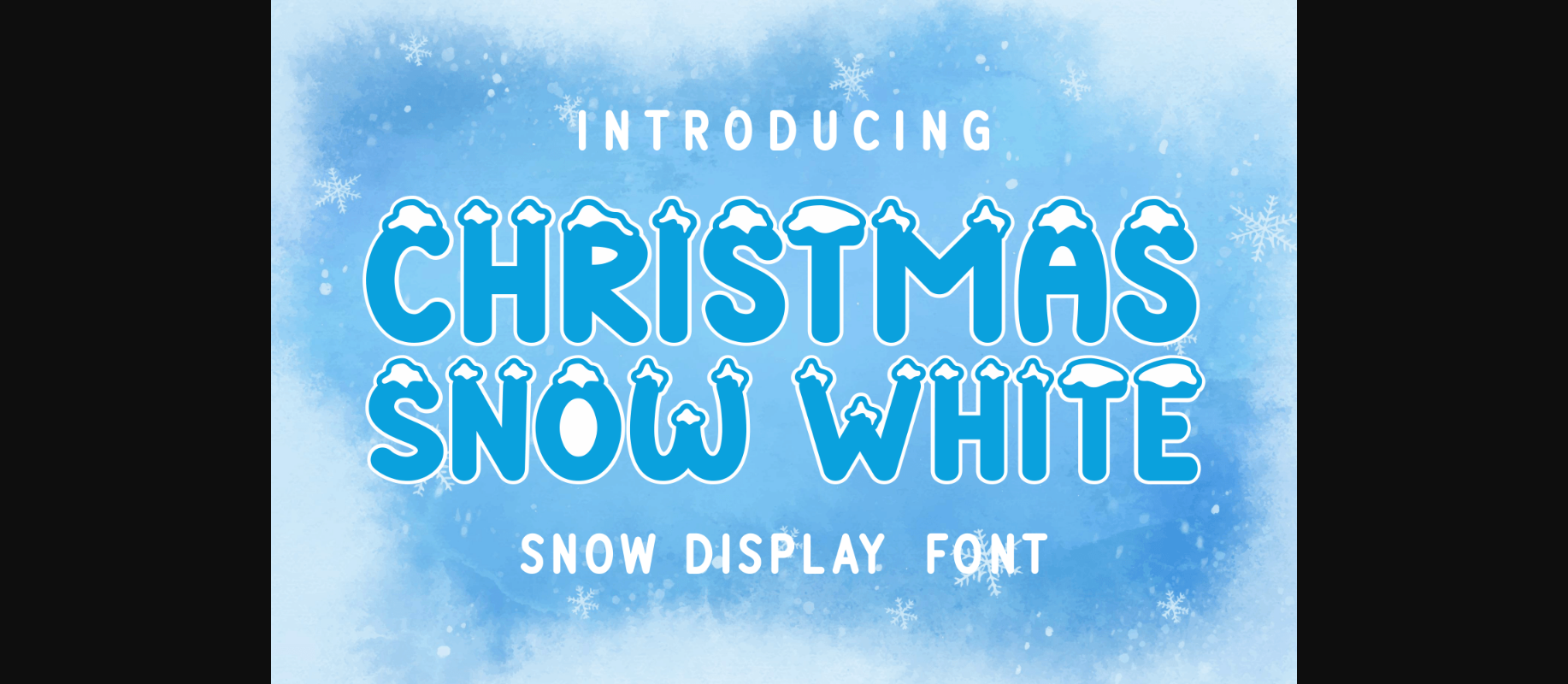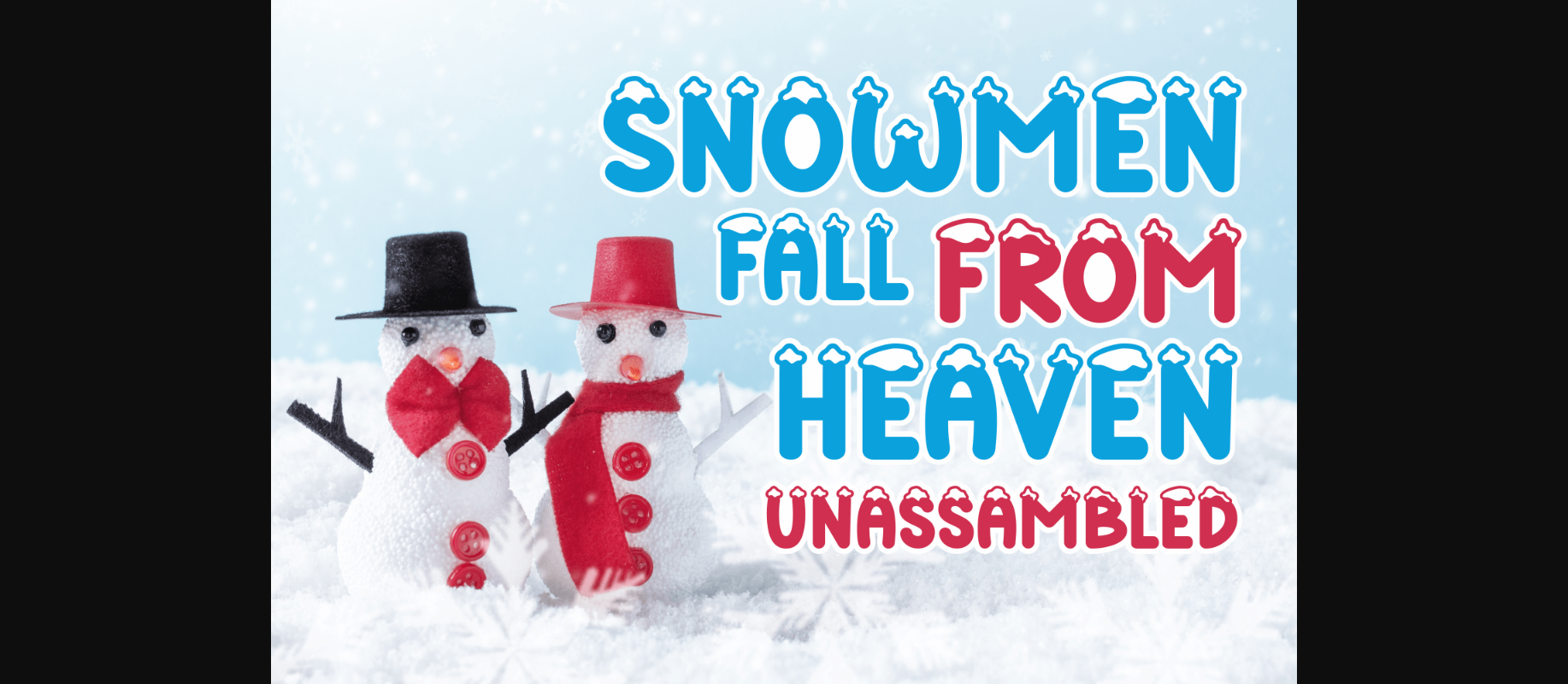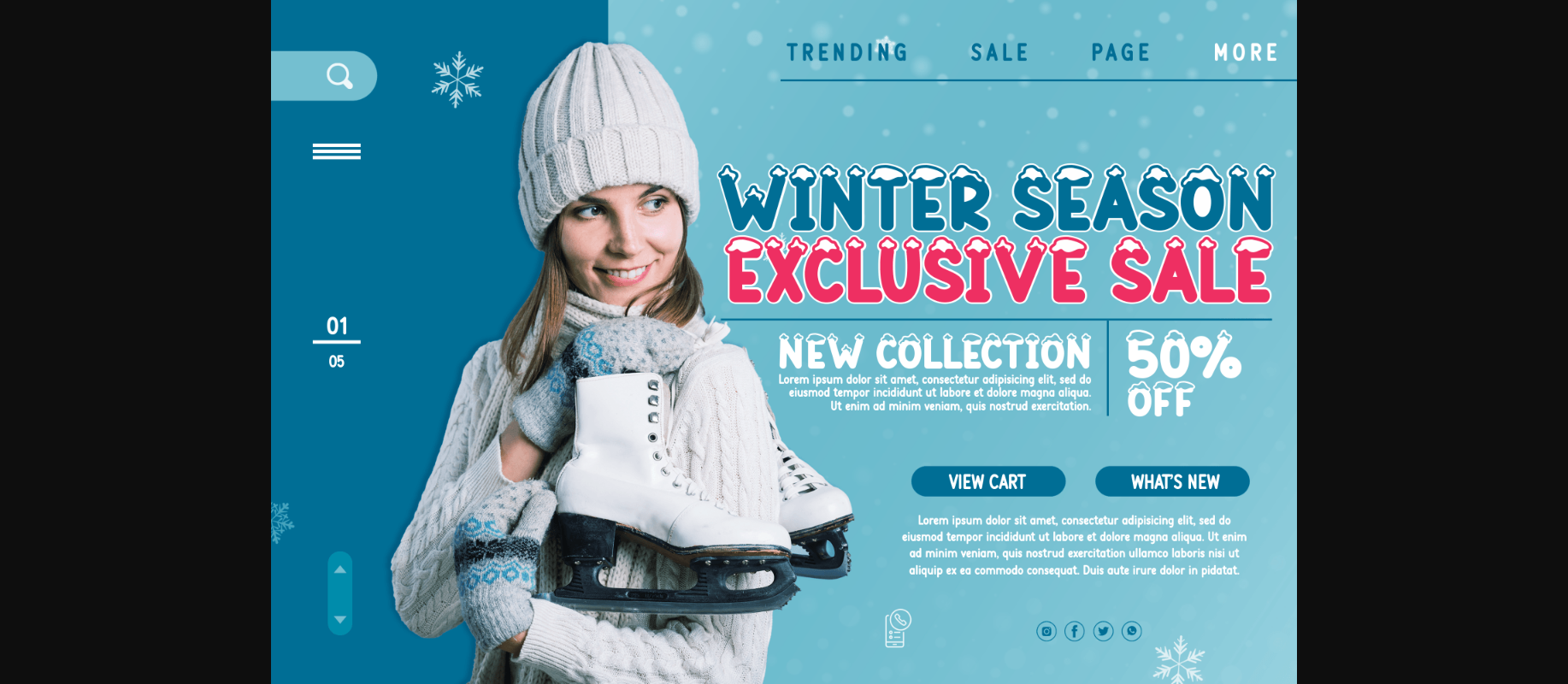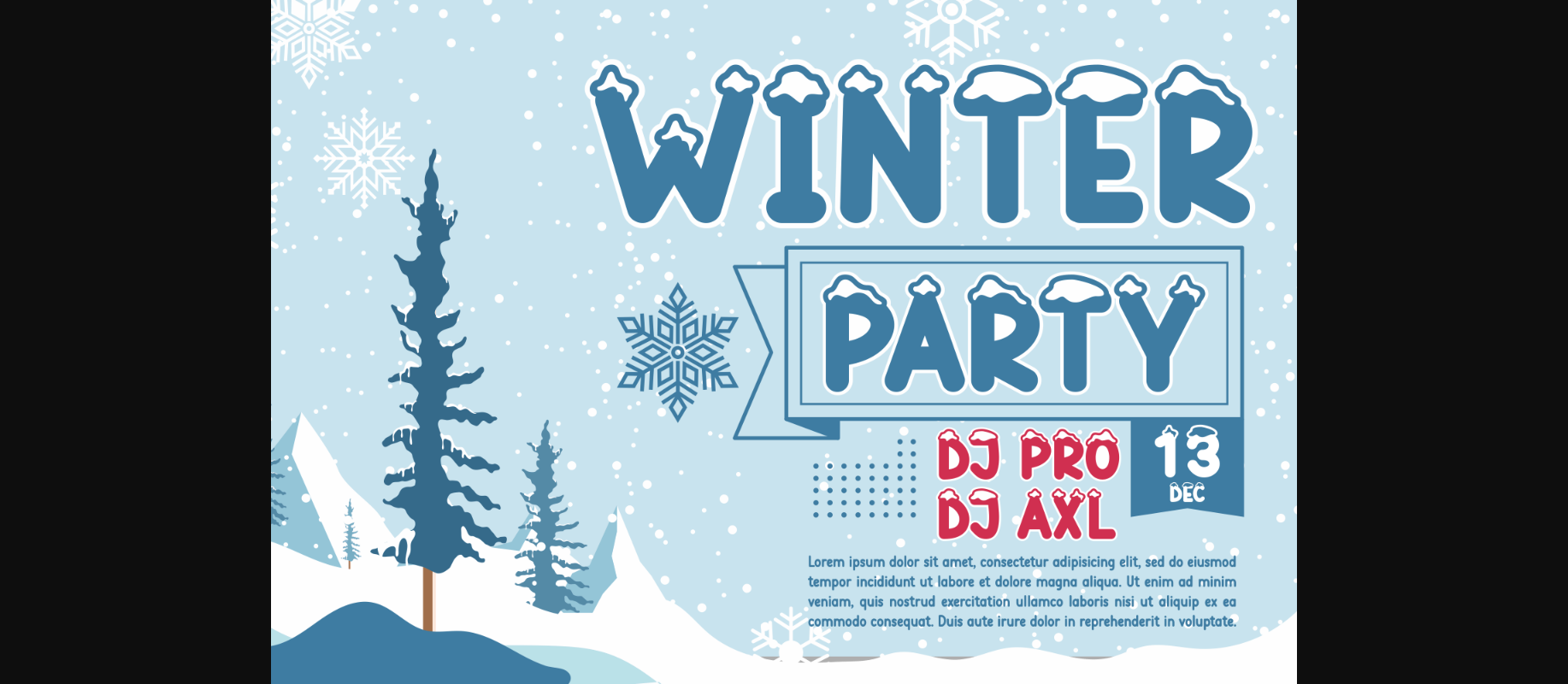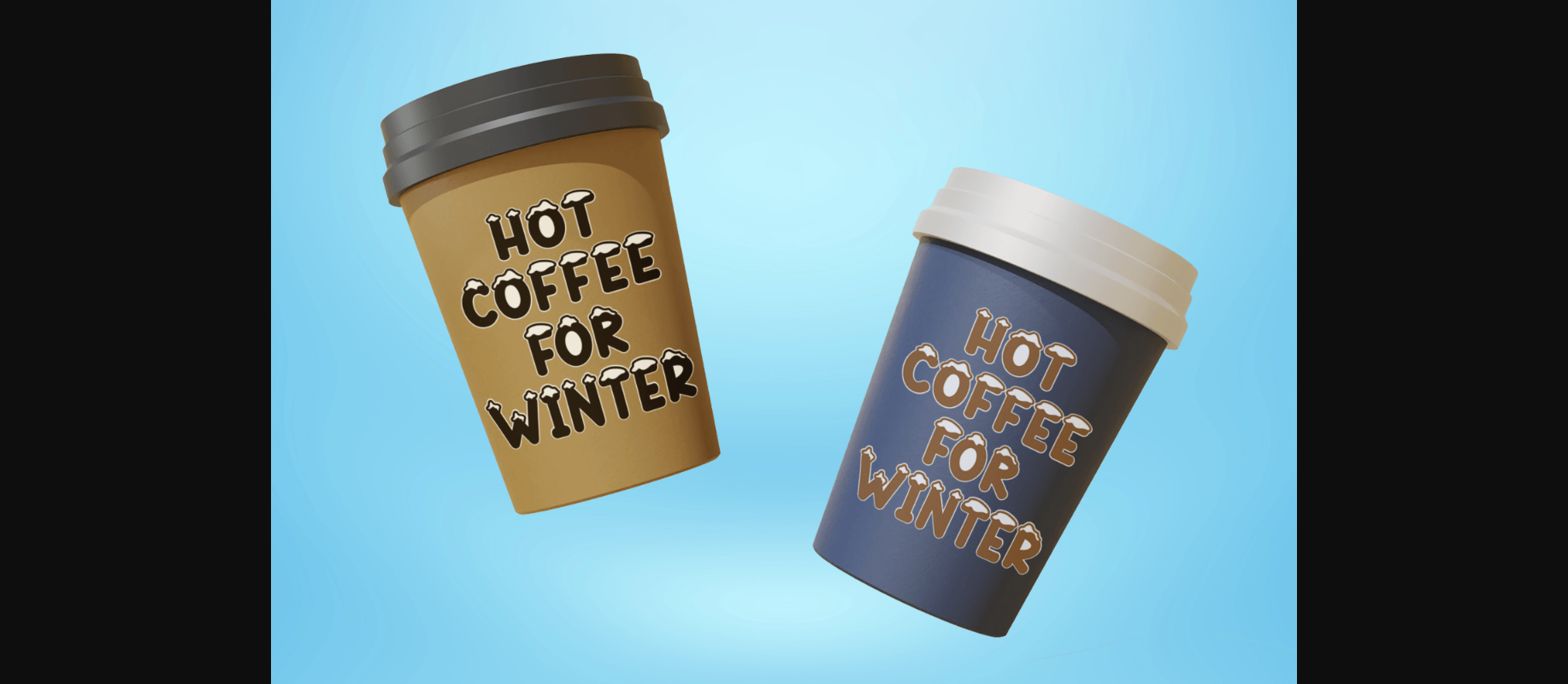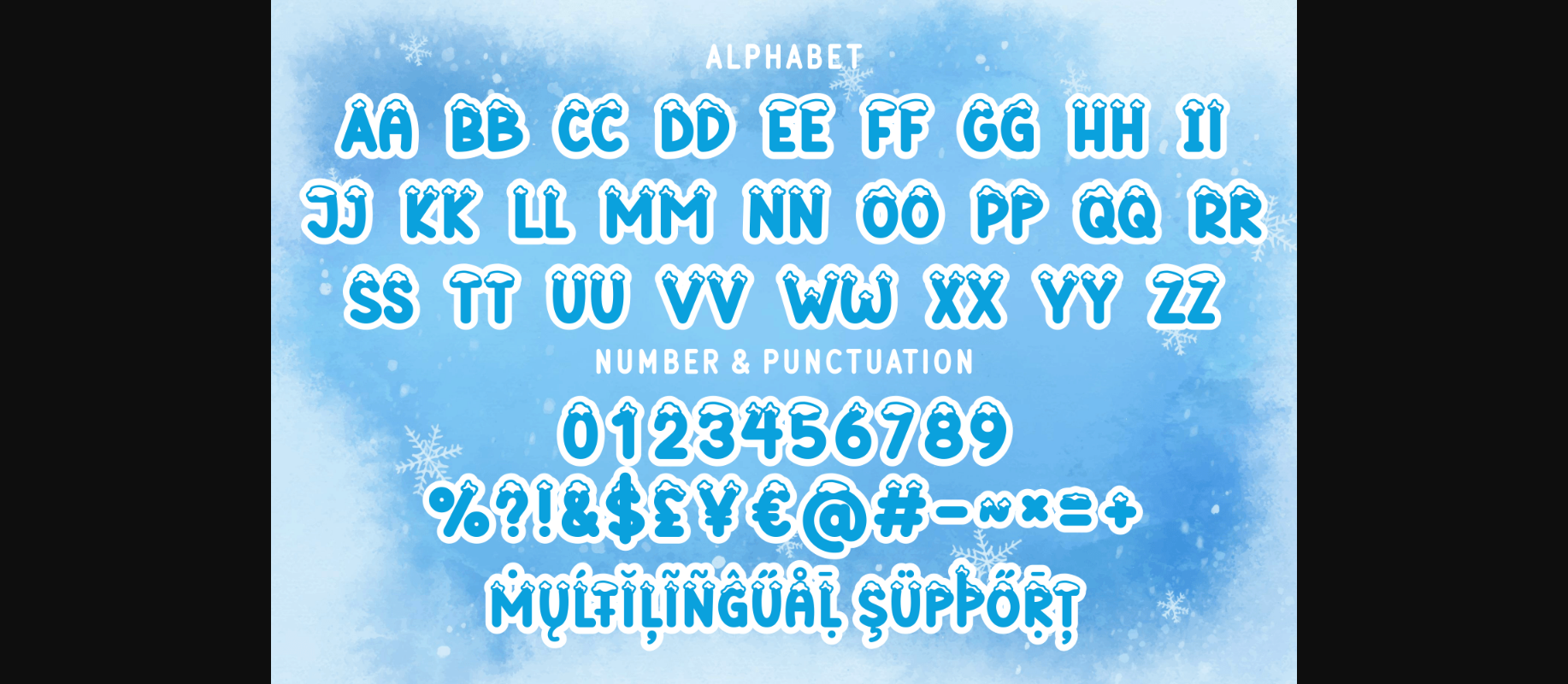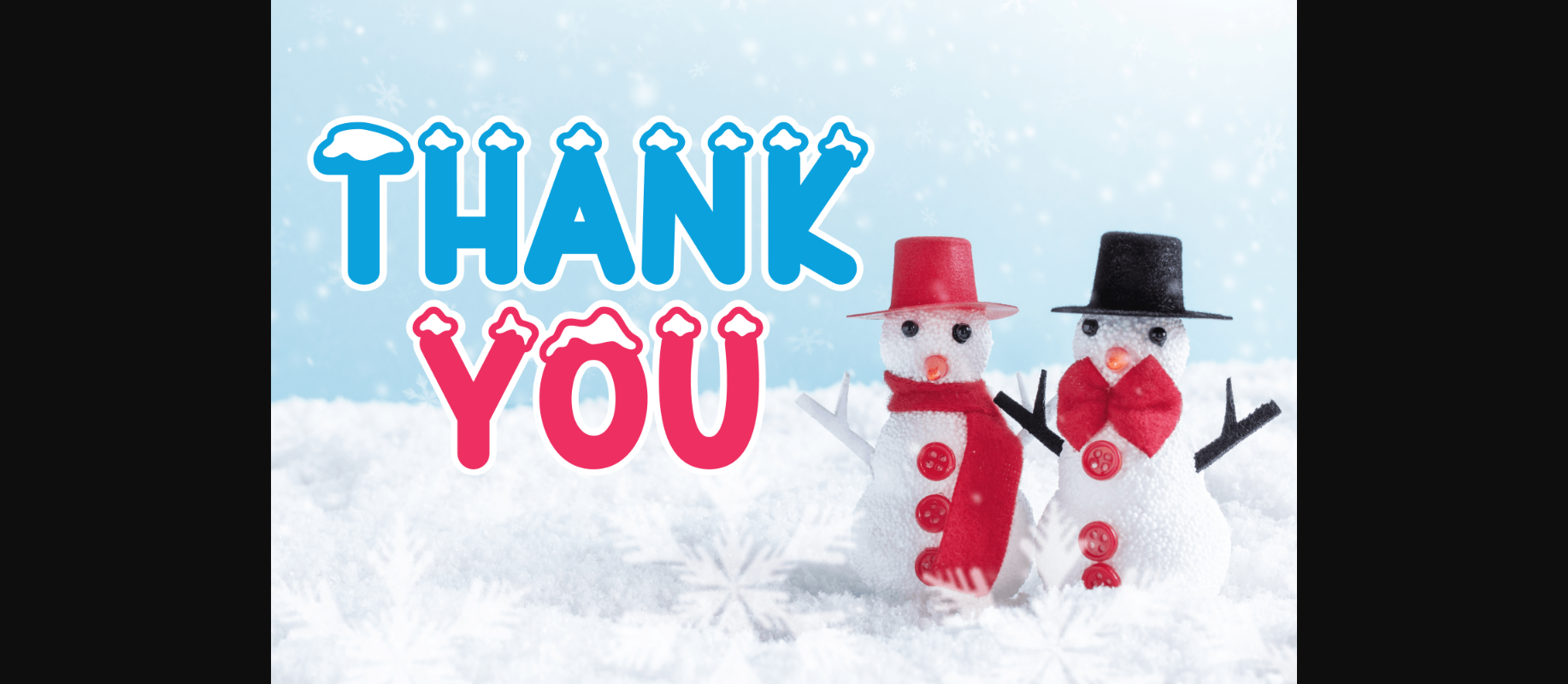
Christmas Snow White is a frosty and fun decorative font featuring characters topped with fluffy snow. Use this typeface to make your winter projects come alive!